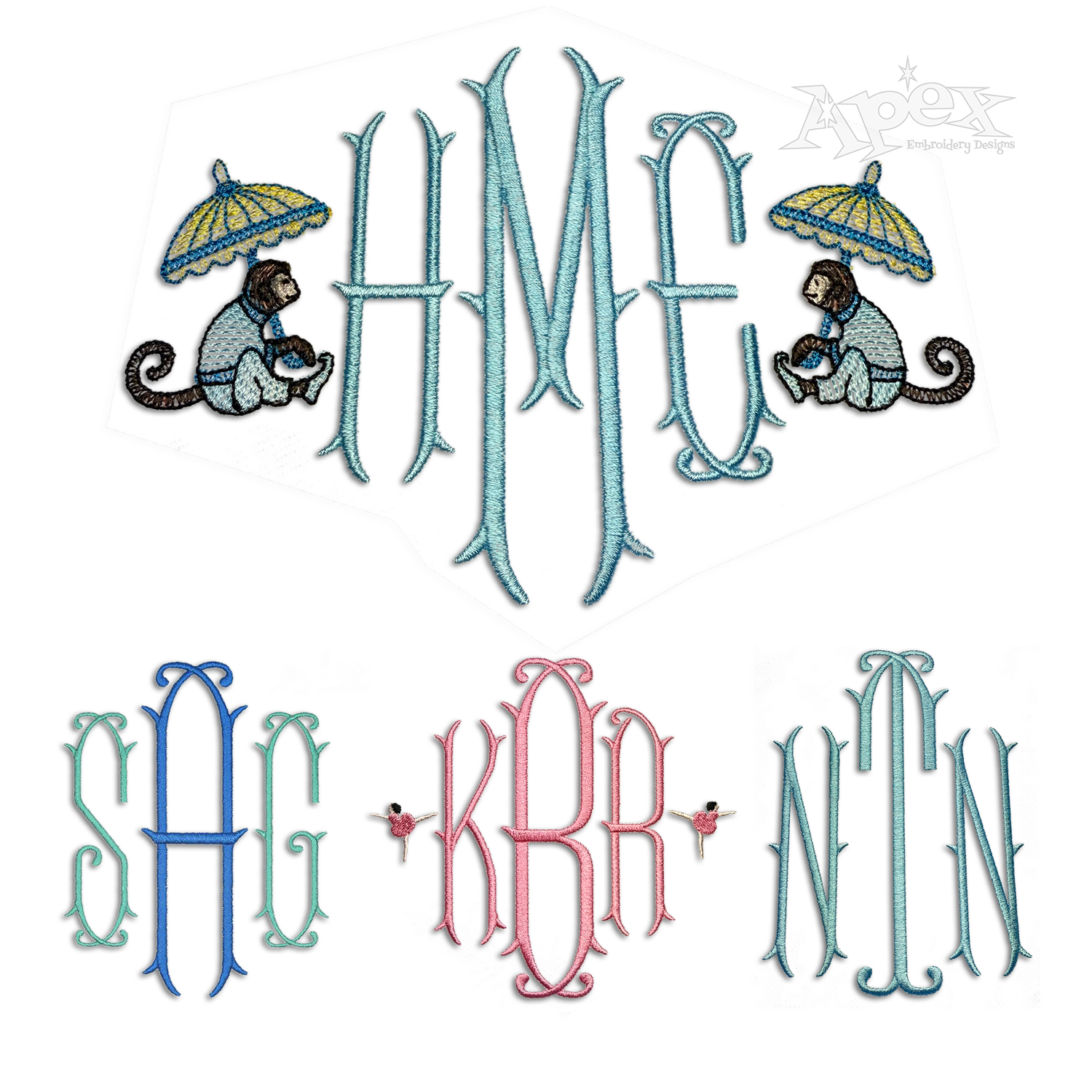
Glasgow Embroidery Font
Create Scottish personalized gifts and home d?cor with Glasgow. European old world sword and knight style monogram embroidery font. Featuring a classic Europe Regal stylish monogram set is perfect for customizing hats, linens, towels, baby gifts, tote bags, and more.
This premium Glasgow embroidery font collection includes complete size sets with uppercase monogram letters designed for creating stunning 3-letter monograms. Each font comes professionally digitized for smooth stitching and excellent embroidery results. Apex has digitized machine embroidery fonts for over 25 years.
- Perfect for 3-Letter Monograms